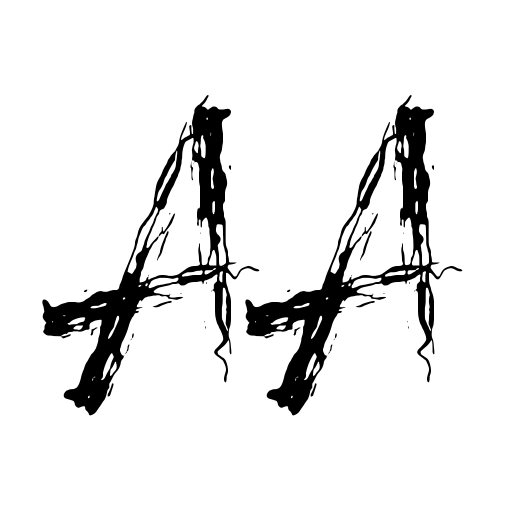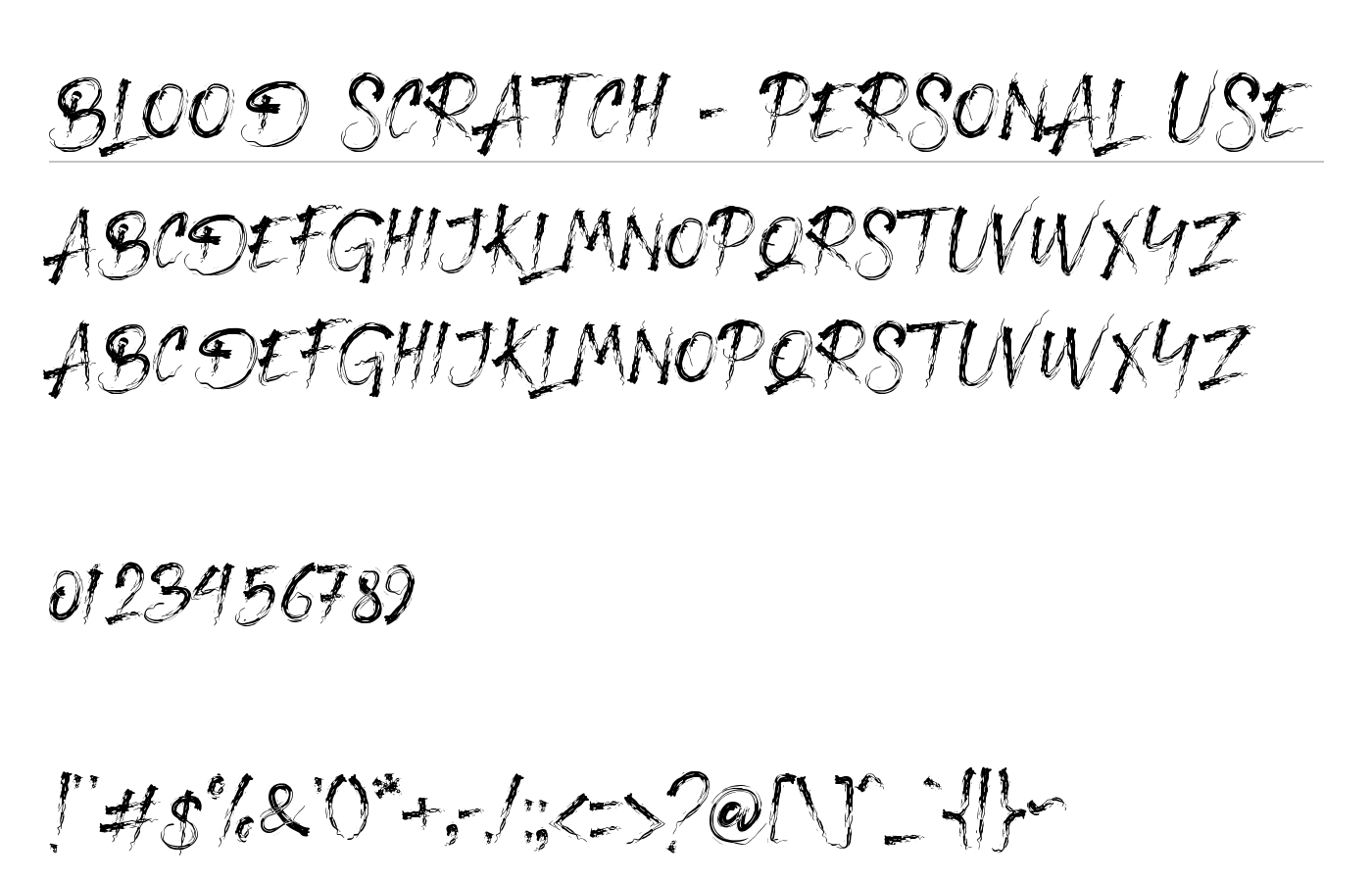
Blood Scratch is a rough, hand-drawn script font with a distressed, edgy look that feels raw and energetic. Its irregular strokes and jagged edges give it a scratched, almost chaotic personality, making it perfect for horror, thriller, or grunge-themed designs that want to convey intensity and drama. This font works best in headlines, posters, and branding where a bold, rebellious, and handcrafted vibe is desired.
Blood Scratch - Personal Use Font
About Blood Scratch - Personal Use Font
| Font family | Blood Scratch - Personal Use Font |
| Designer | Aditiyo Dwi Putranto |